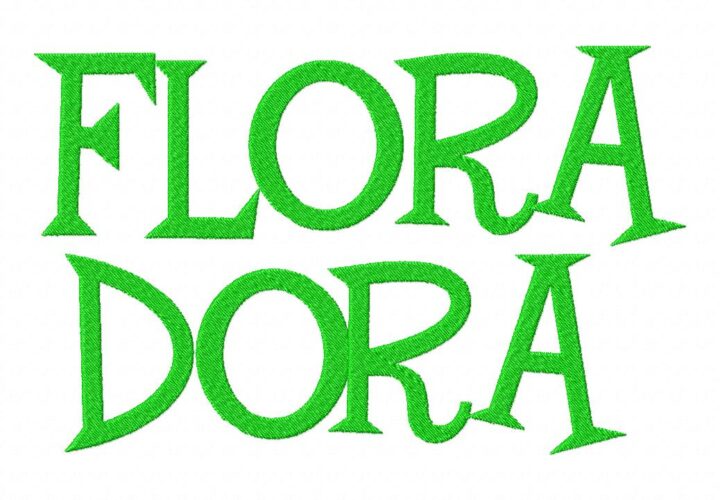
Add this curly design to any project that needs a bit of fun!
The Flora Dora Machine Embroidery Font Set includes all Uppercase Letters, Lowercase Letters and Numbers in all of the following sizes: 1″ 2″ & 3″